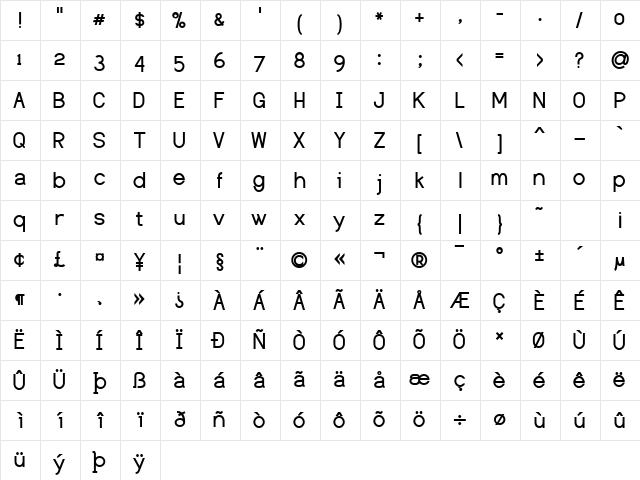
Complete Dustismo Regular glyph index. Displaying only characters natively supported by Dustismo Regular font.
Dustismo is a composed and adaptable typeface that performs quietly and consistently across a wide range of design contexts.
Who designed the Dustismo Regular font?